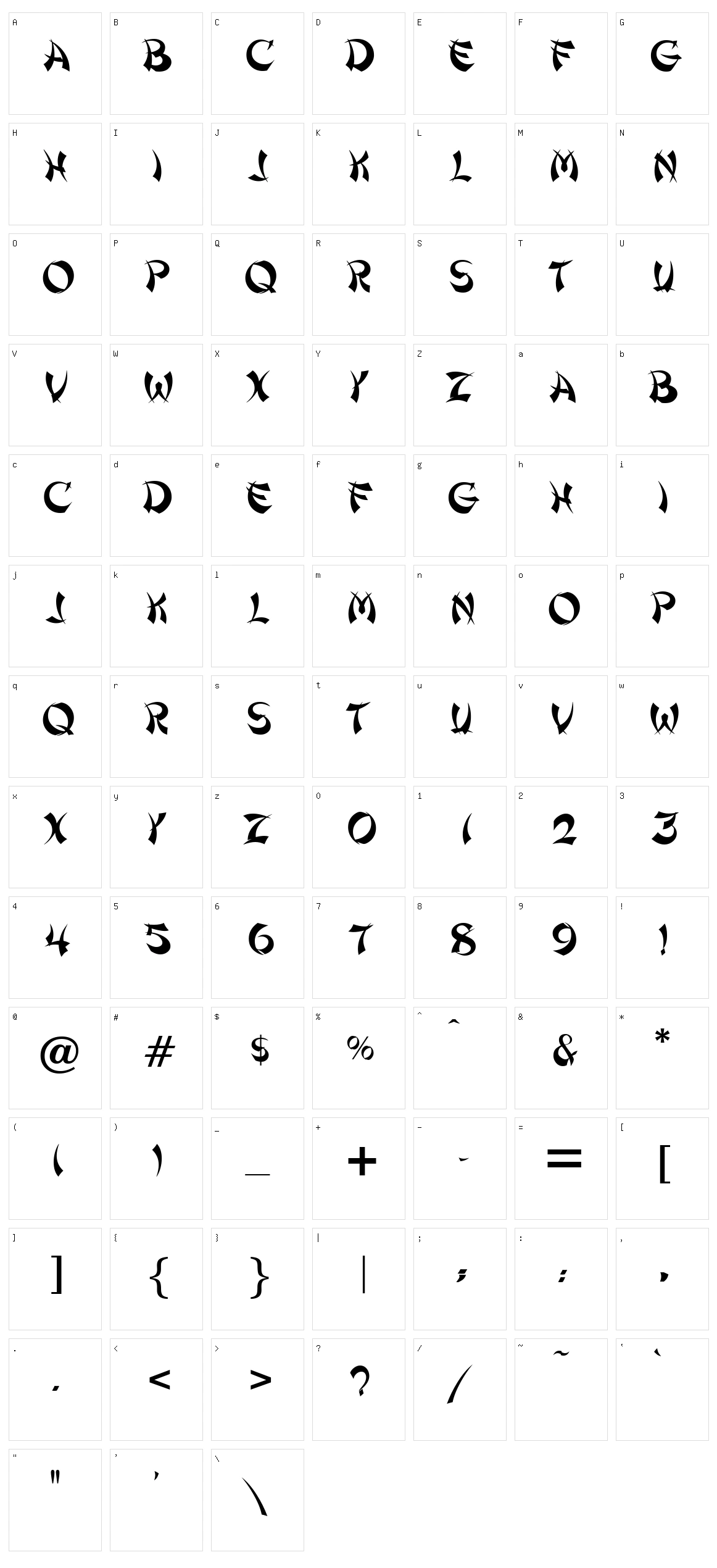
The free font Shanghai is carefully designed by PrimaFont, showcasing a thoughtful balance of creativity and usability and falls under the Asian font style. When you download the ZIP file, it contains only 28.34 KB of font files, making it lightweight and quick to download. Please review the license details below to understand permitted usage and distribution rights. If license information is not available, we recommend using this font for personal projects only or contacting the author directly for commercial usage permissions.